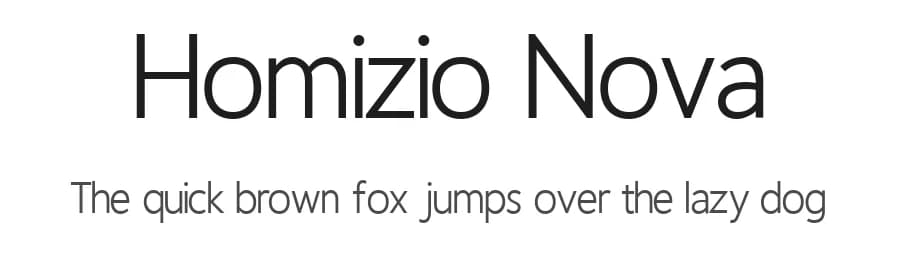
About Homizio Nova Font
Homizio Nova ships with 3 OpenType features you can switch on in apps that support them (Illustrator, InDesign, Affinity, Figma, CSS font-feature-settings).
Homizio Nova supports 216 languages.
Homizio Nova Font is a versatile sans-serif font that works for both headings and body text. Pair it with a contrasting serif or slab serif font to add visual interest and a clear distinction between titles and body copy.